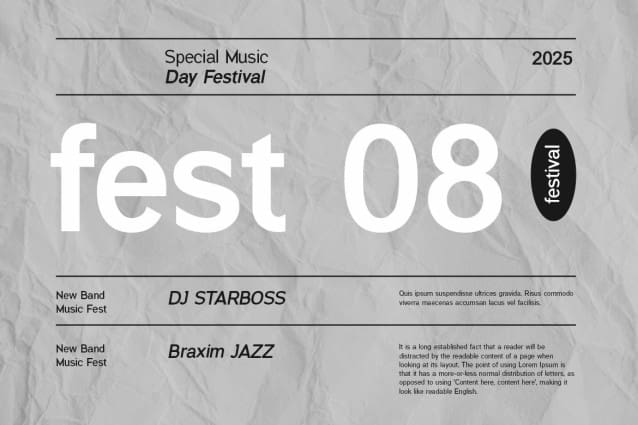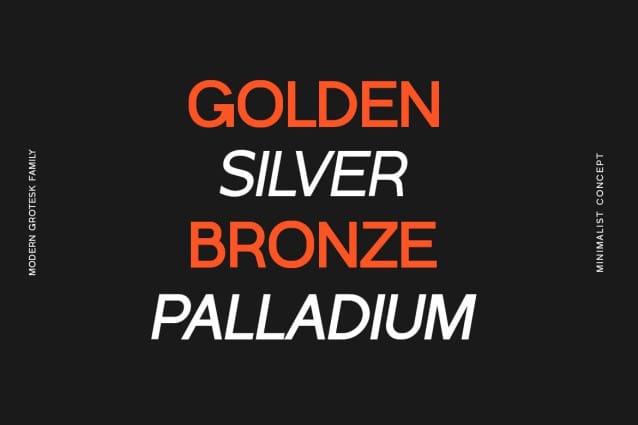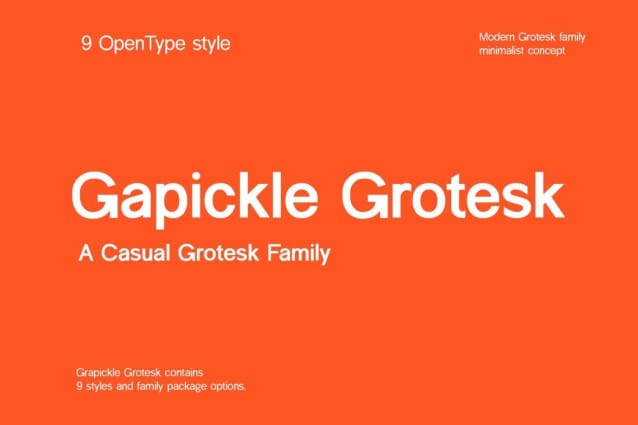
Gapicle Grotesk Font Family
Gapicle Grotesk Font Family – Modern sans display fonts give off a beautiful, classy, ​​elegant and stylish feel. This font is ideal for a variety of projects such as signatures, stationery, logos, weddings, typographic quotes, magazine or book covers, website headers, branding, etc. Additionally, branding related to fashion or editorial design shows both masculine and feminine qualities.